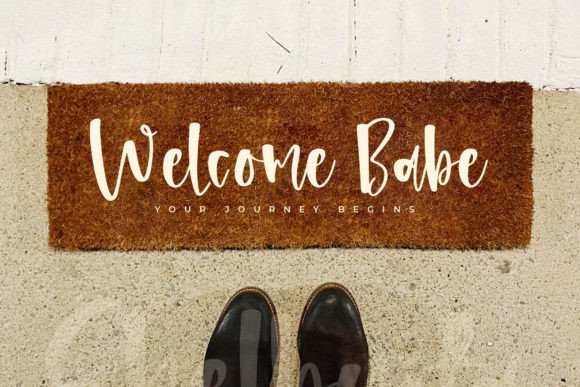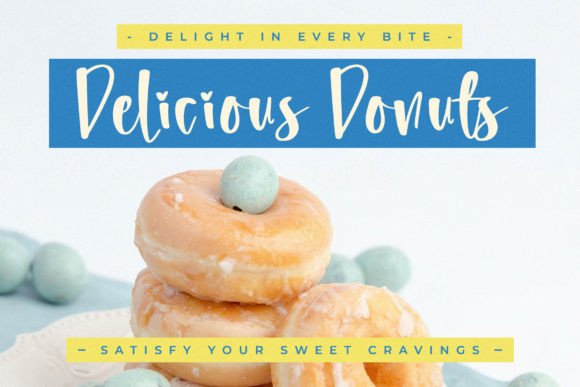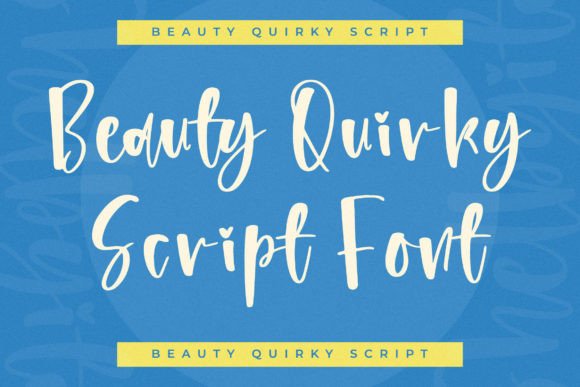
Introduction to Shelbyita Font
Have you ever stared at a blank page, trying to bring your creative vision to life, only to feel stuck and uninspired? For designers, this can be a frustrating experience, especially when working on projects that require a unique touch. But what if I told you that there’s a font that can help spark your creativity and elevate your designs? Enter Shelbyita Font – a beautiful, quirky script that’s perfect for any project that needs a touch of elegance and whimsy.
As a valuable resource for designers, Shelbyita Font is a game-changer. With its high-quality design and transparent background, it’s easy to use and customize to fit your creative needs. Plus, it’s free to download, making it an accessible design resource for anyone looking to take their projects to the next level.
Whether you’re working on a logo, branding project, or simply need a beautiful script for a special event, Shelbyita Font is the perfect choice. Its versatility and beauty make it a must-have for any designer looking to add a touch of sophistication to their work.
Key Features of Shelbyita Font
- Perfect design resource for various creative projects, including logos, branding, and typography
- Unique, modern design style with a mix of elegance and sophistication
Honest Review: Shelbyita Font
As a designer, I’m always on the lookout for high-quality design resources that can elevate my creative projects. Recently, I stumbled upon the Shelbyita Font, and I’m excited to share my thoughts on it.
- ✨ The Shelbyita Font has a unique, elegant design that can add a touch of sophistication to any project.
- ✨ The font is highly versatile and can be used for a variety of creative projects, from branding to publishing.
- ⚠️ The Shelbyita Font doesn’t have a transparent background option, which may limit its use in certain design situations.
- ⚠️ The font is not as widely compatible as some other popular fonts, which may cause issues with certain software or operating systems.
Overall, I’m impressed with the Shelbyita Font’s unique design and versatility. While it may have some limitations, it’s still a valuable resource for designers looking for a high-quality, free font to add to their design arsenal.
The Shelbyita Font is ideal for various design projects, including logos, business cards, and social media graphics. Its unique style and high-quality design make it a great resource for designers and creatives looking to add a touch of elegance to their work.
Comparison to Shelbyita Font: Oswald has a more geometric and sleek design, whereas Shelbyita Font has a more elegant and cursive feel. Oswald is ideal for use in titles and headings, while Shelbyita Font is better suited for body text.